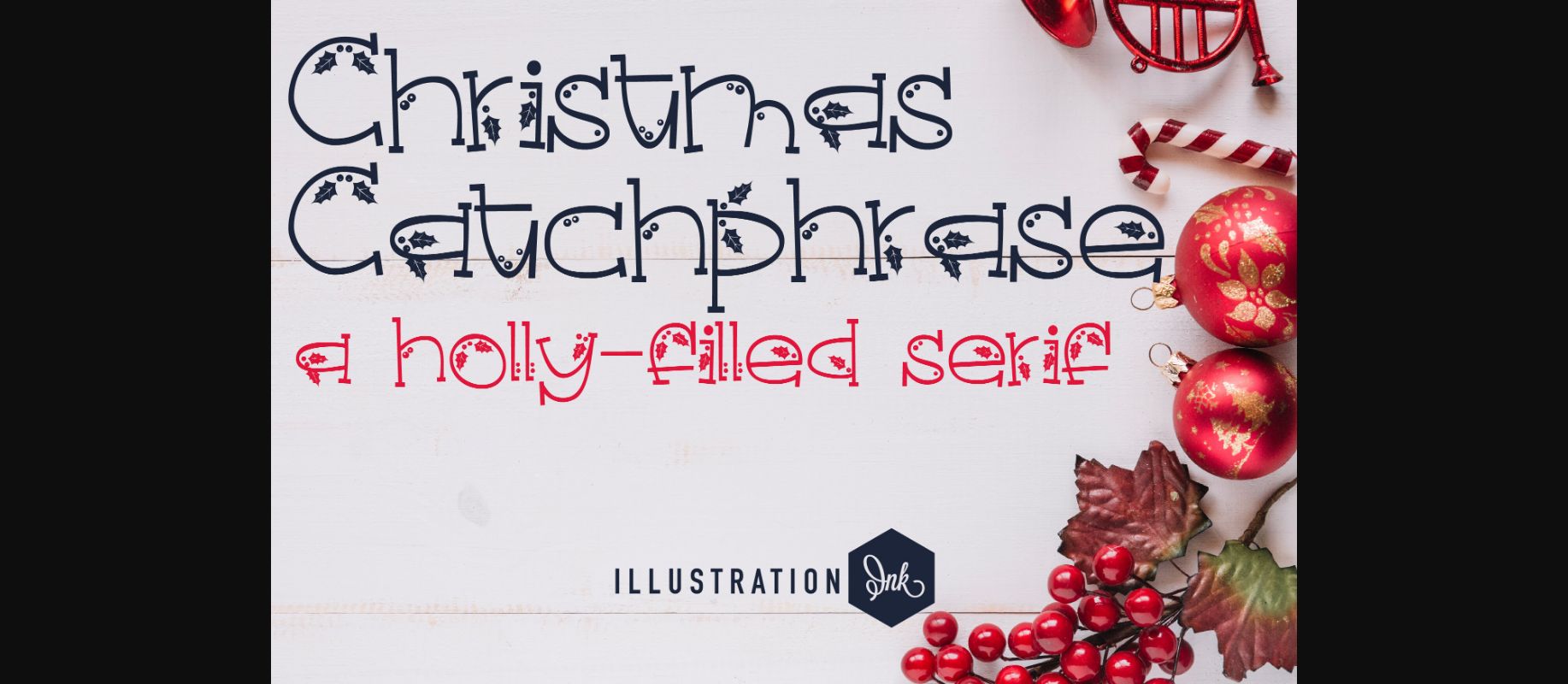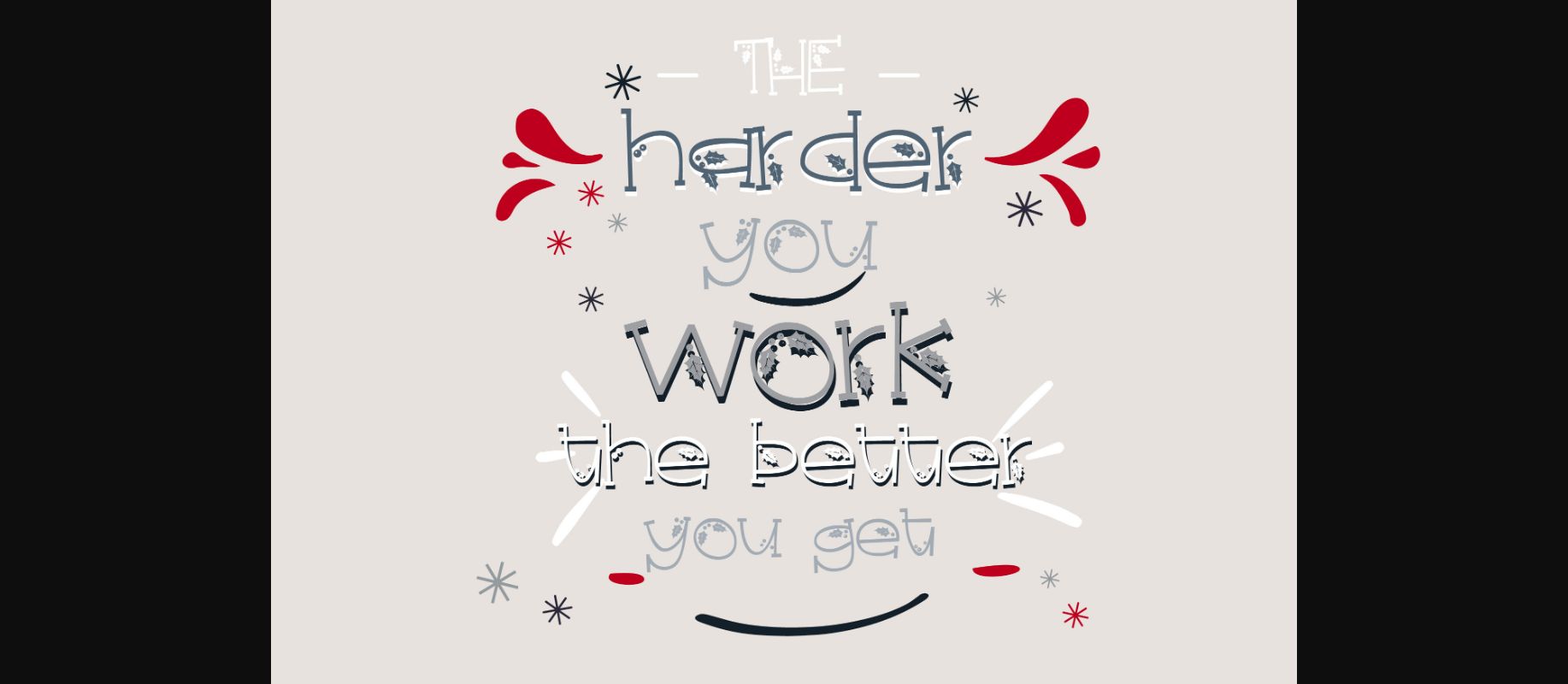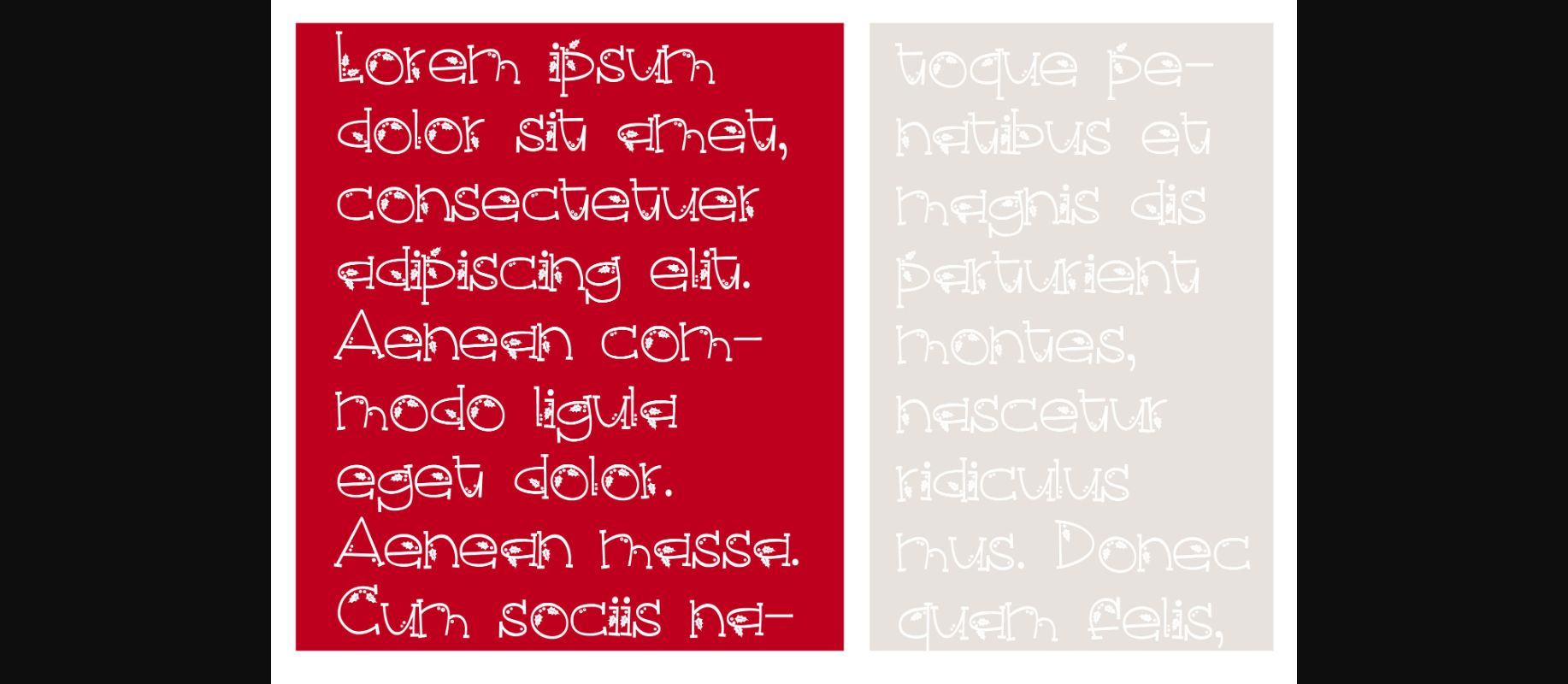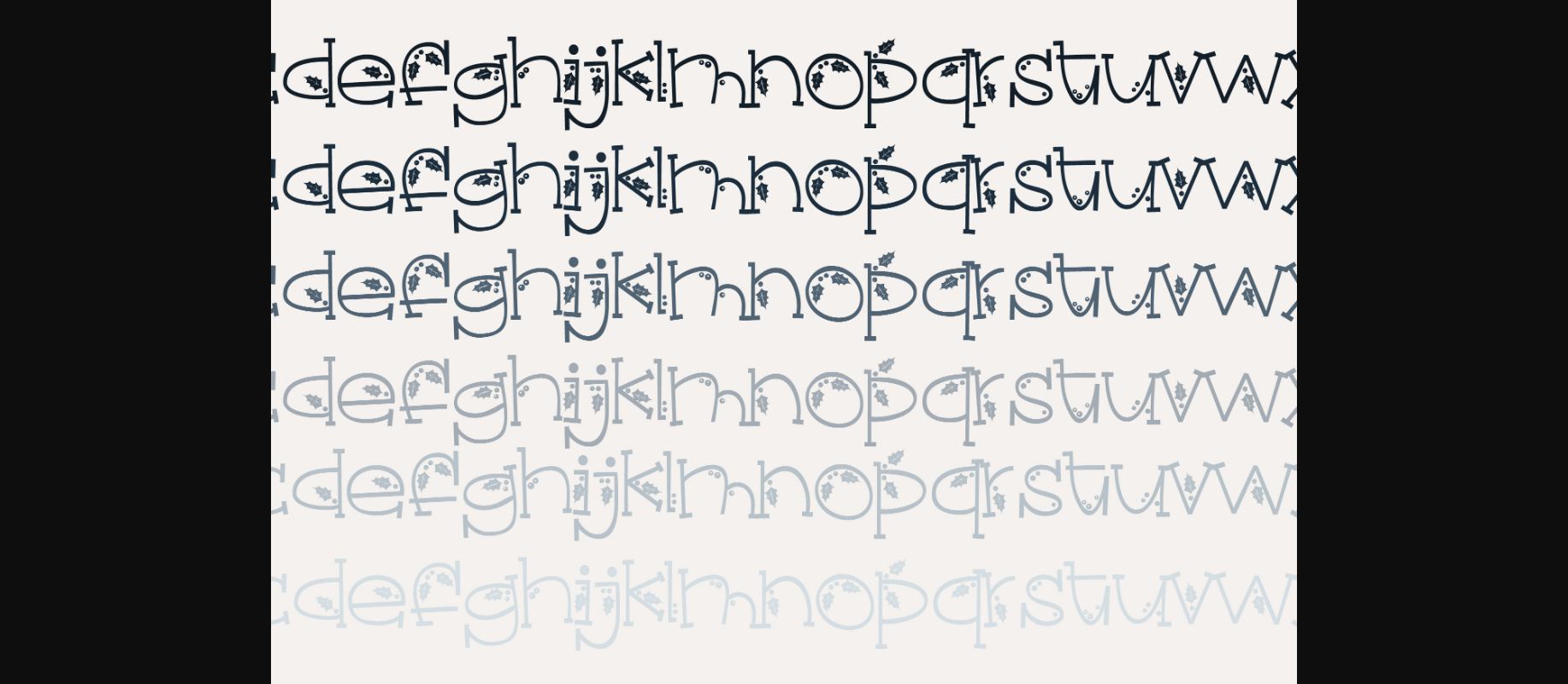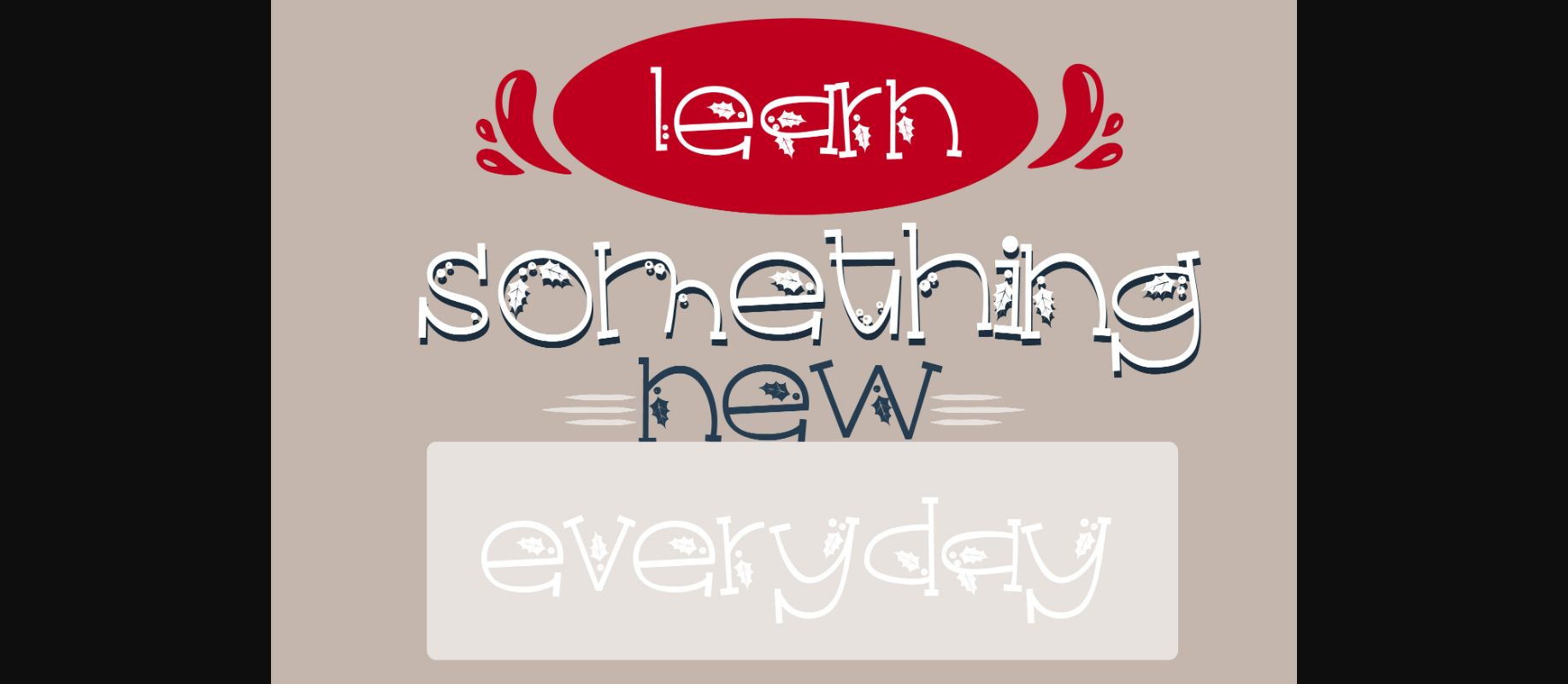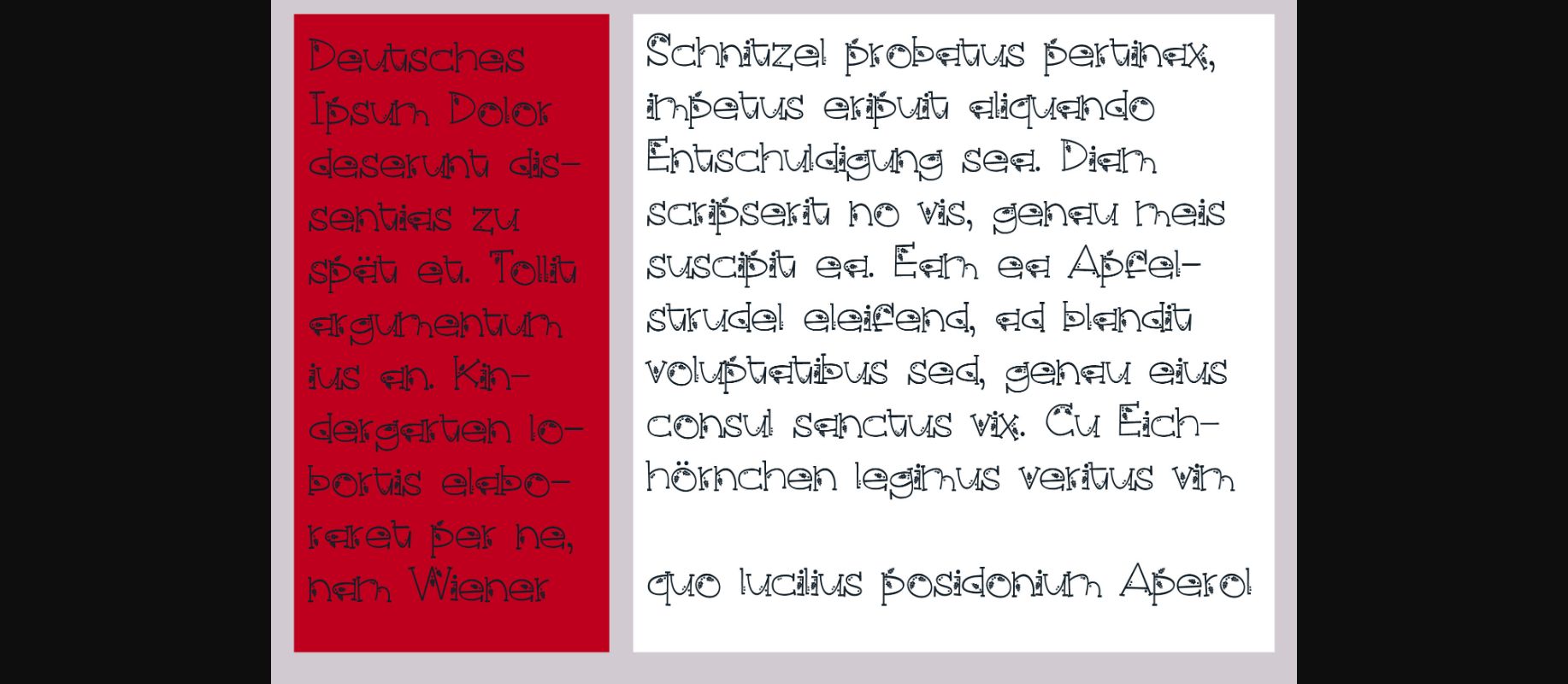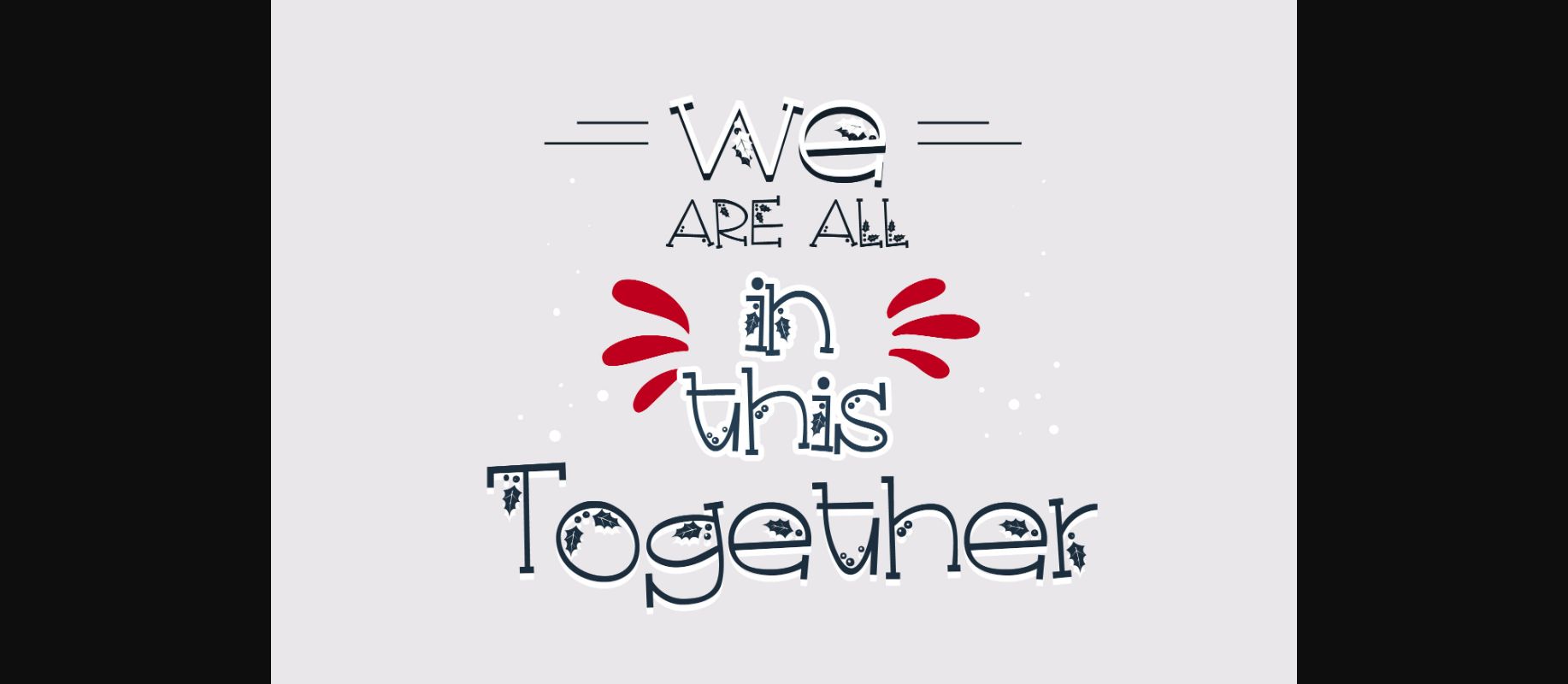
Christmas Catchphrase Font
About Christmas Catchphrase Font
This hand-crafted font features Christmas holly on a hand-written print.
A hand-crafted font is a font that is designed to look like it was written by hand. It is often used for invitations, greeting cards, and other items. Handwritten fonts can be either formal or informal, and they can be used for a variety of purposes.
Handwritten fonts can be a great way to add a casual touch to your designs. They can also be used to create a sense of nostalgia or whimsy. However, it is important to choose a handwritten font that is appropriate for the project you are working on. A formal handwritten font may not be appropriate for a casual invitation, while an informal handwritten font may not be appropriate for a corporate document.